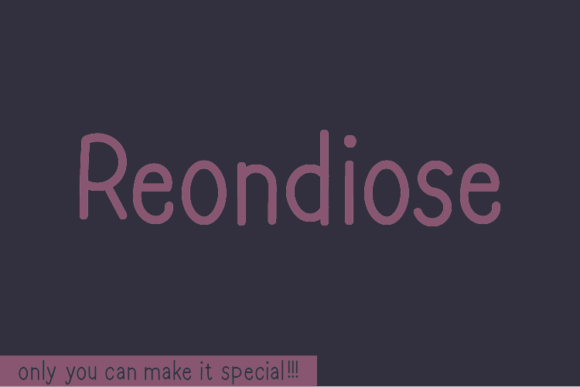
Introducing Reondiose Font - The Maestro's Choice for Music Notes
Take your music notes to a whole new level with Reondiose Font, a handwritten gem that adds a touch of artistry to your compositions. Crafted by the talented Hanna Bie, Reondiose is a script font born from the fusion of musical notes and organic handwriting. Its unique charm lies in the preservation of each character's original indentation, resulting in a font that's as natural and captivating as a handwritten score.
Unlock the creative potential of Reondiose and let your imagination soar. Whether you're composing music, designing quotes, crafting notes, or creating eye-catching tees and product designs, Reondiose provides a captivating canvas for your artistic expression. Its graceful curves and elegant lines add a touch of sophistication to any project, while its authentic handwritten style evokes a sense of intimacy and connection.
With Reondiose Font, you can:
* Elevate your Music Scores:
Bring your musical compositions to life with Reondiose. Its natural flow and organic feel perfectly complement the rhythm and melody of music notes, creating a visually captivating experience for your audience.
* Create Enchanting Quotes:
Transform ordinary quotes into works of art with Reondiose. Its expressive lines and elegant curves add a touch of whimsy and charm, making your words come alive on the page.
* Design Unique Notes:
Add a personal touch to your notes and messages with Reondiose. Its natural handwritten style creates a sense of warmth and intimacy, making your notes feel like heartfelt letters from a friend.
* Unleash Your Creativity in Product Design:
Take your product designs to the next level with Reondiose. Its versatile nature makes it perfect for a wide range of products, from tees and bags to wall art and home décor. Its unique style adds a touch of exclusivity and originality to your designs, making them stand out in the marketplace.
Reondiose Font is more than just a digital font; it's an invitation to express yourself creatively. Its natural beauty and captivating charm will inspire you to create stunning designs that leave a lasting impression. So, embrace the magic of Reondiose and unlock the true potential of your artistic vision today!